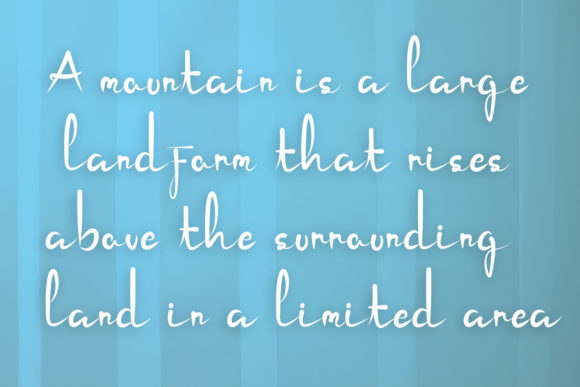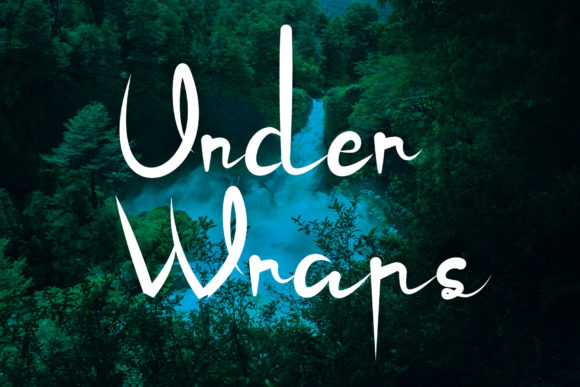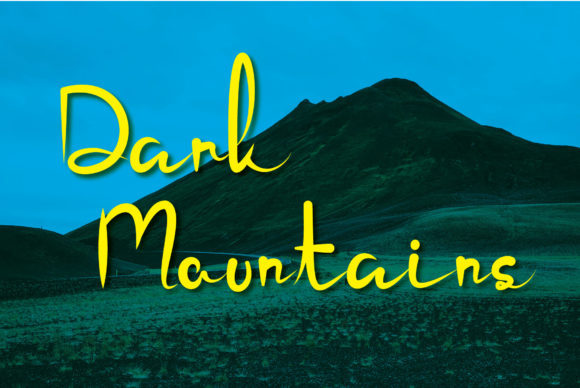
About Eclipse Font
Eclipse is a stunning and flowing script font that exudes elegance and grace. With its balanced and varied letterforms, this font strikes the perfect harmony between thin and thick strokes, creating a visually pleasing and harmonious look.
The smooth and fluid lines of Eclipse give it a sense of movement and sophistication. Each letter is meticulously crafted to enhance the overall beauty of your projects, whether you’re designing wedding invitations, branding materials, signage, or any other creative endeavor.
The versatility of Eclipse makes it suitable for a wide range of applications. Its clean and legible style ensures readability across different sizes and mediums, making it perfect for both large-scale designs and small-scale details. Whether you’re using it for headlines, titles, or body text, Eclipse adds a touch of elegance and sophistication to your typography.
The flowing nature of Eclipse’s letterforms makes it a wonderful choice for creating beautiful and eye-catching designs. Its graceful curves and swooping ascenders and descenders create a sense of movement and rhythm, adding a dynamic element to your compositions. Whether you’re designing a logo, crafting a brand identity, or working on a special project, Eclipse will elevate your designs with its captivating presence.
In summary, Eclipse is a beautiful and flowing script font that enhances the beauty of your projects. Its balanced and varied letterforms, along with its elegance and grace, make it a versatile choice for a wide range of design applications. Embrace the fluidity and sophistication of Eclipse as you create stunning and visually appealing designs.